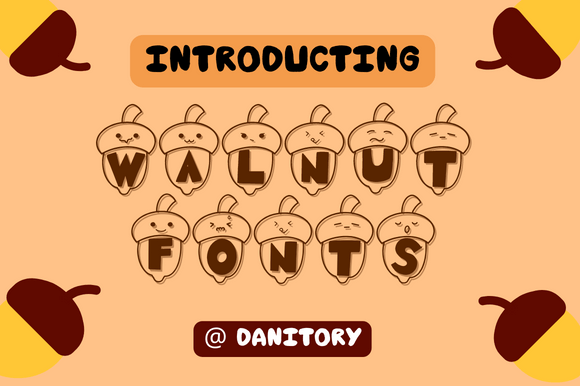
Introducing Walnut Font, the finest decorative font that will add a dash of charm to your designs. This captivating font, meticulously crafted by danita.kukkai, possesses an undeniable elegance that will elevate your projects to new heights.
With its graceful curves and whimsical charm, Walnut Font is the perfect choice for those seeking a font that exudes personality and sophistication. It effortlessly blends modern sensibilities with a timeless aesthetic, making it suitable for a wide range of creative endeavors.
Whether you're a seasoned designer crafting eye-catching graphics or a novice seeking to add a personal touch to your digital creations, Walnut Font is your perfect companion. Its versatility knows no bounds, effortlessly adapting to a multitude of projects, from stunning social media posts and presentations to heartwarming greeting cards and invitations.
Let Walnut Font ignite your creativity and transform your designs into works of art. Embrace its timeless appeal and allow your imagination to soar as you create captivating visuals that leave a lasting impression.